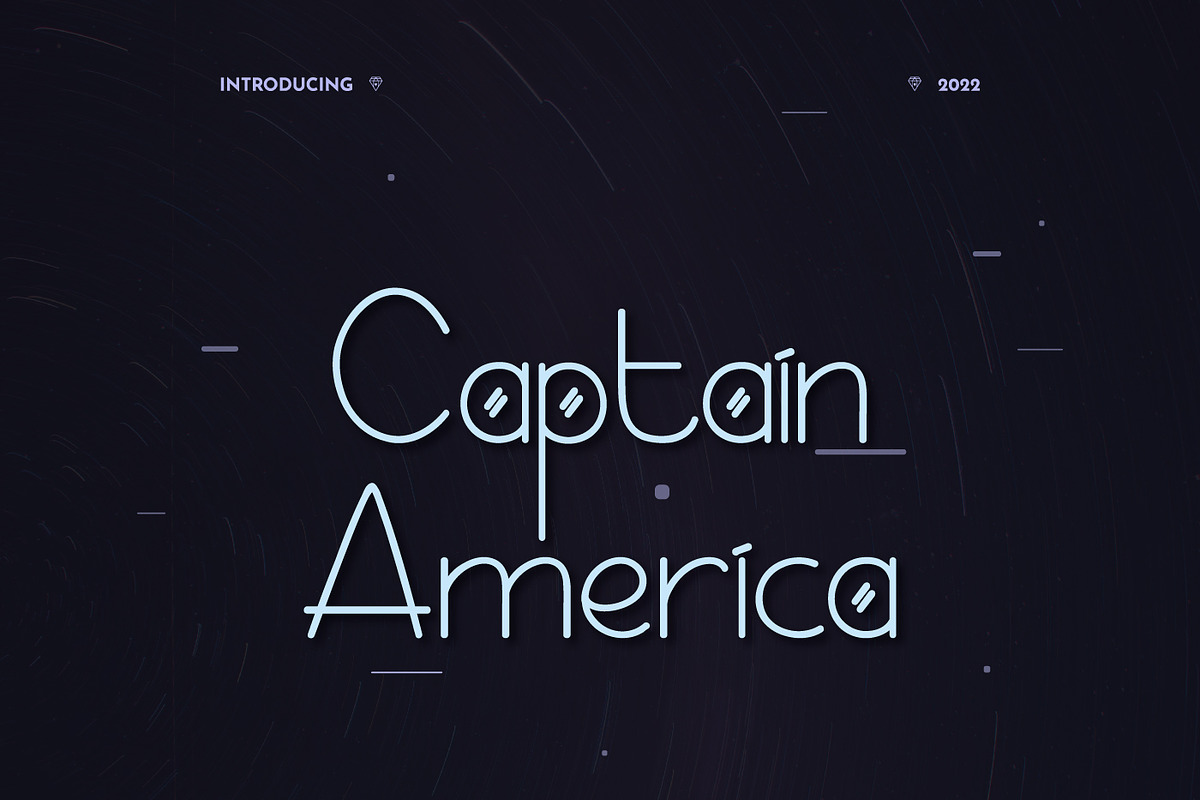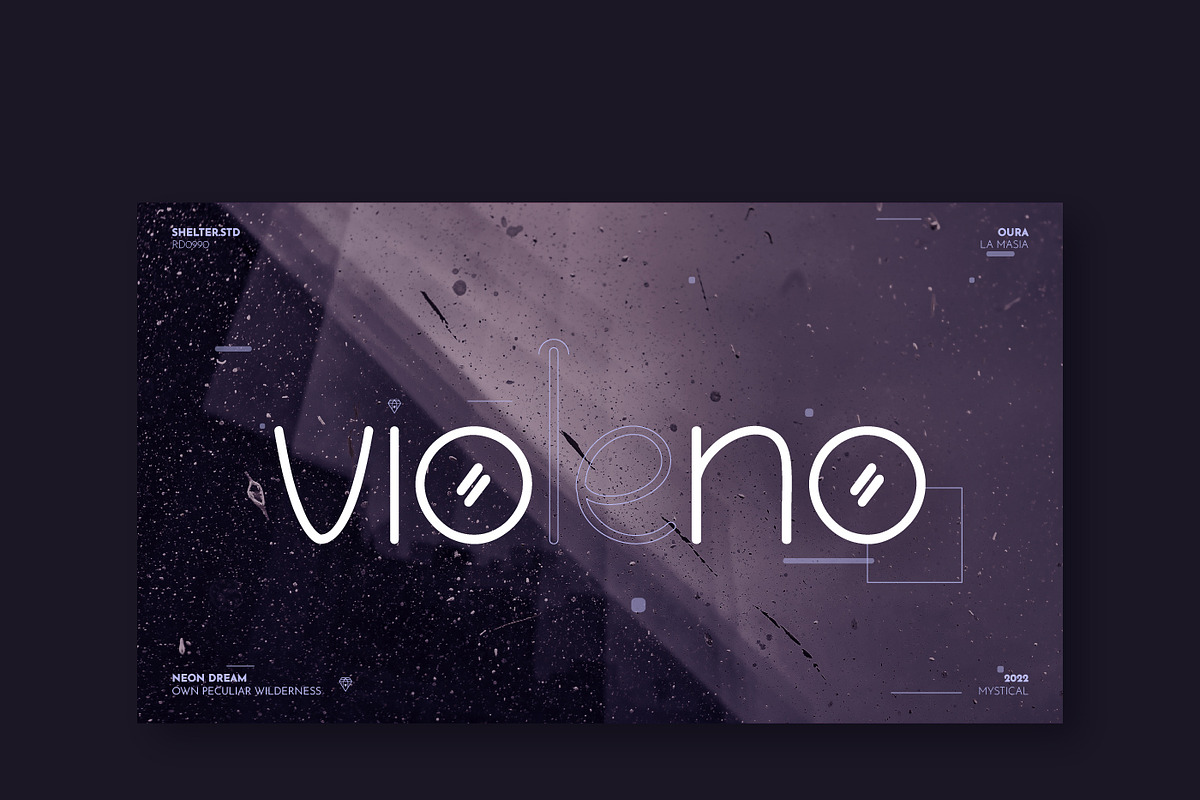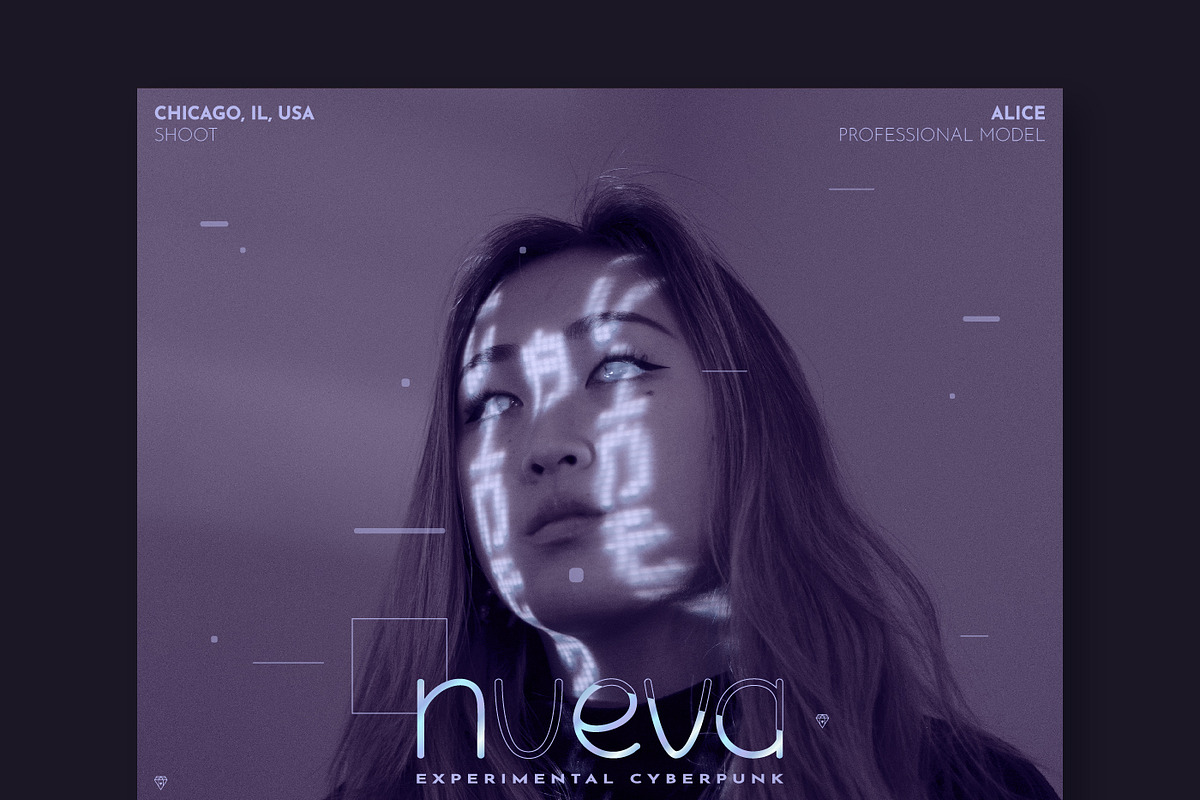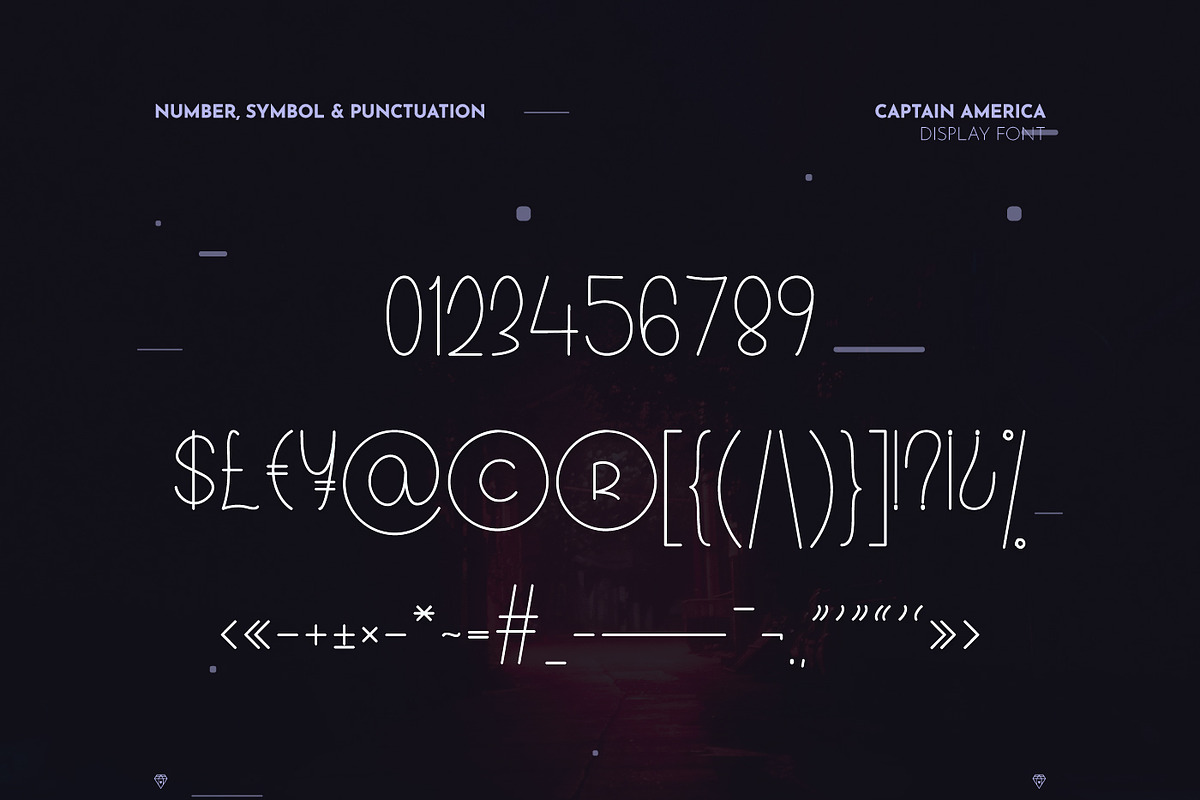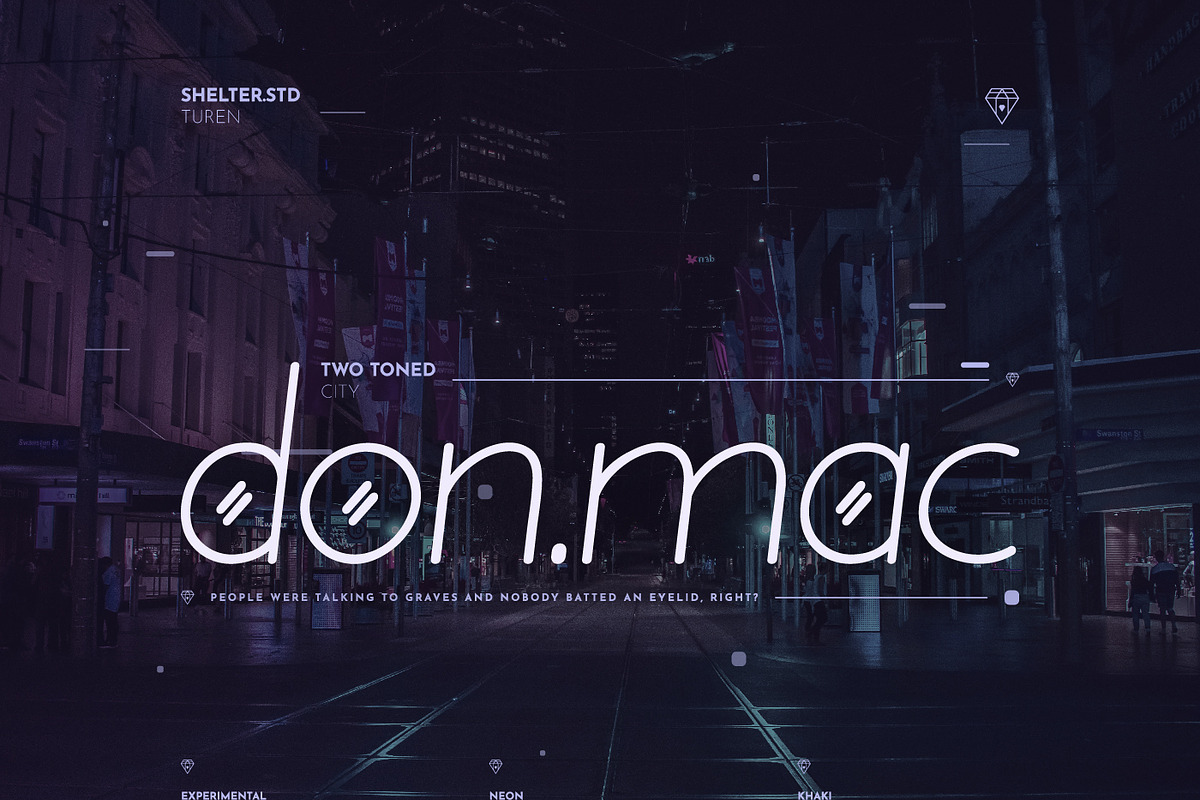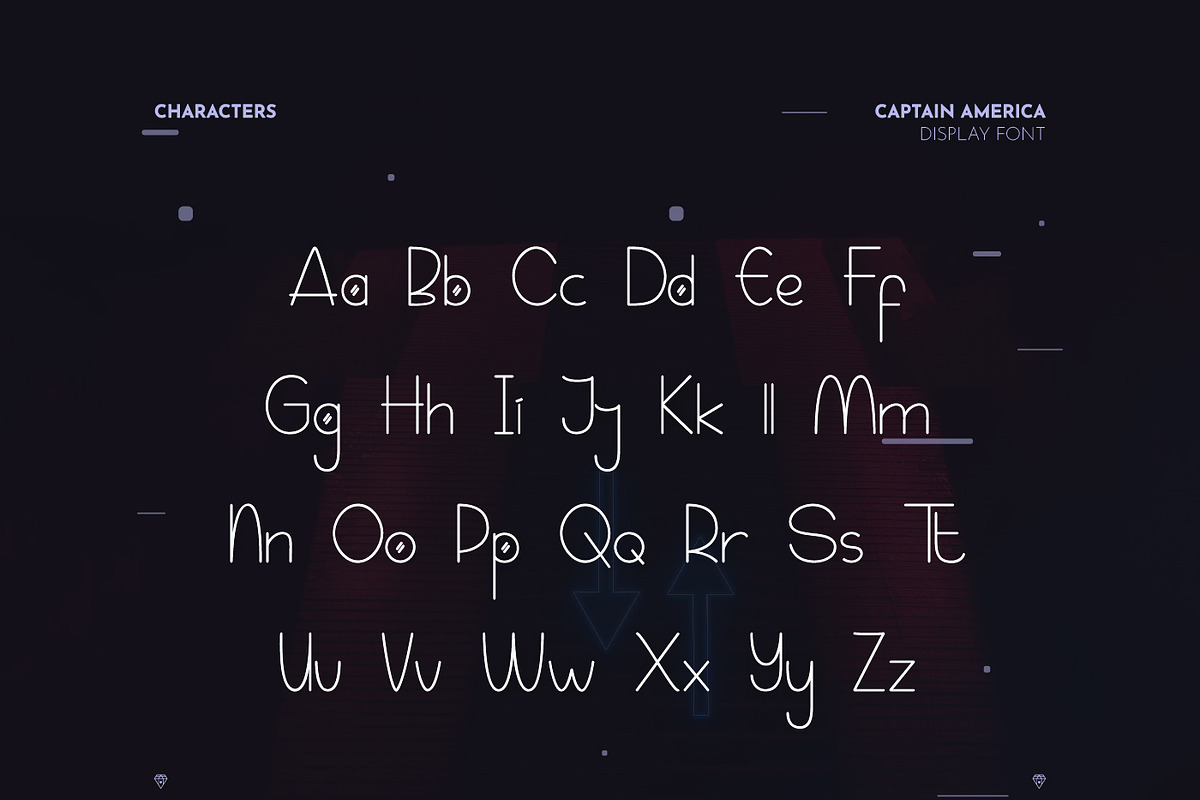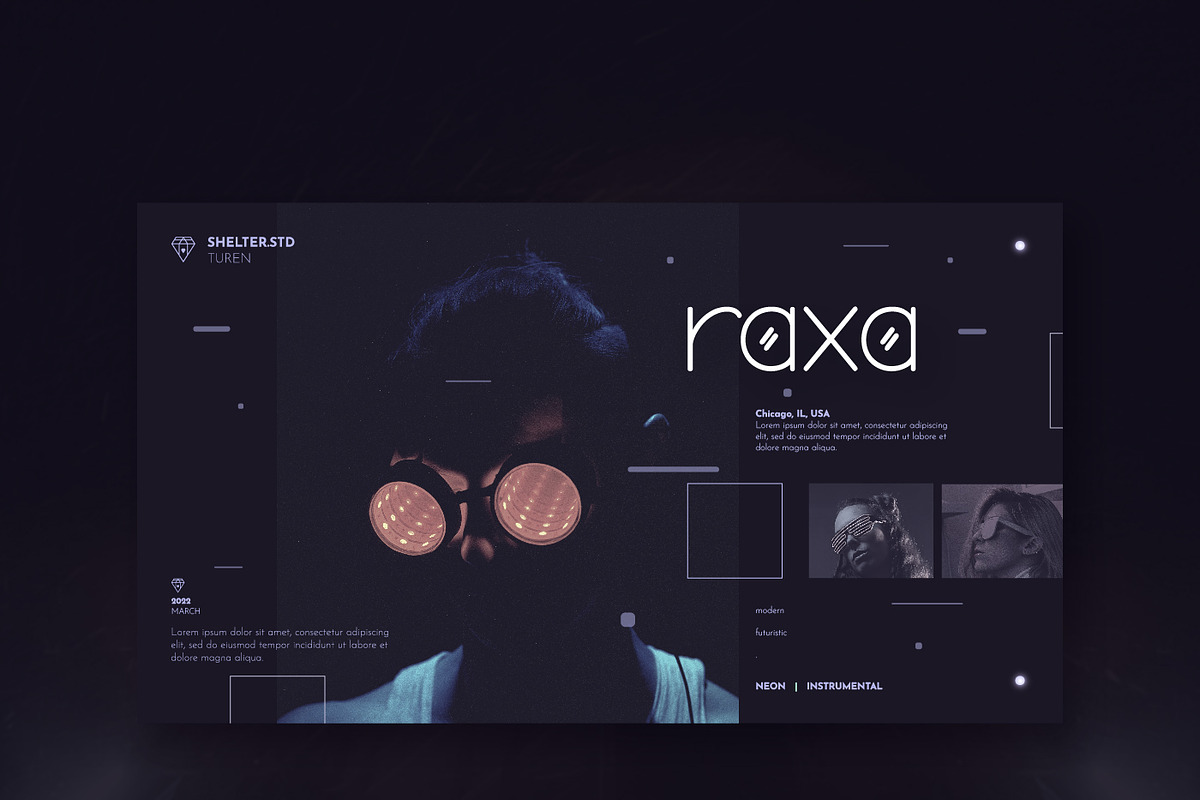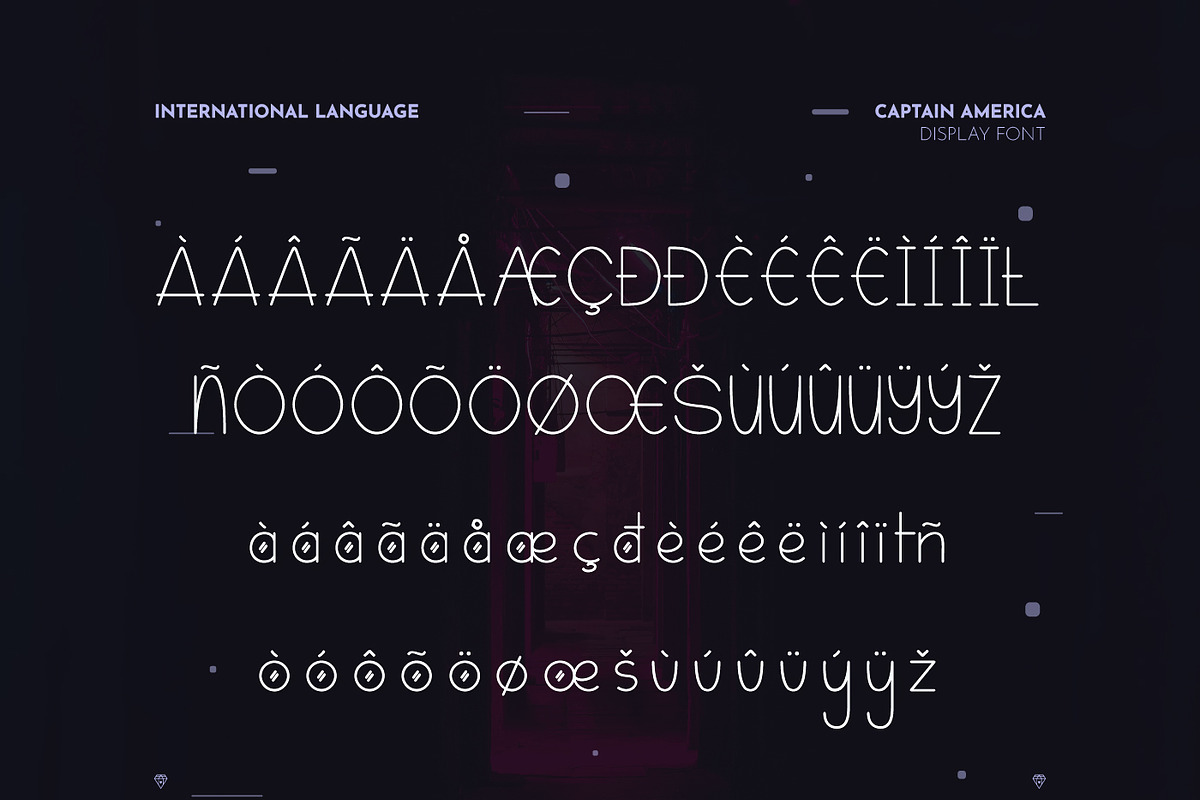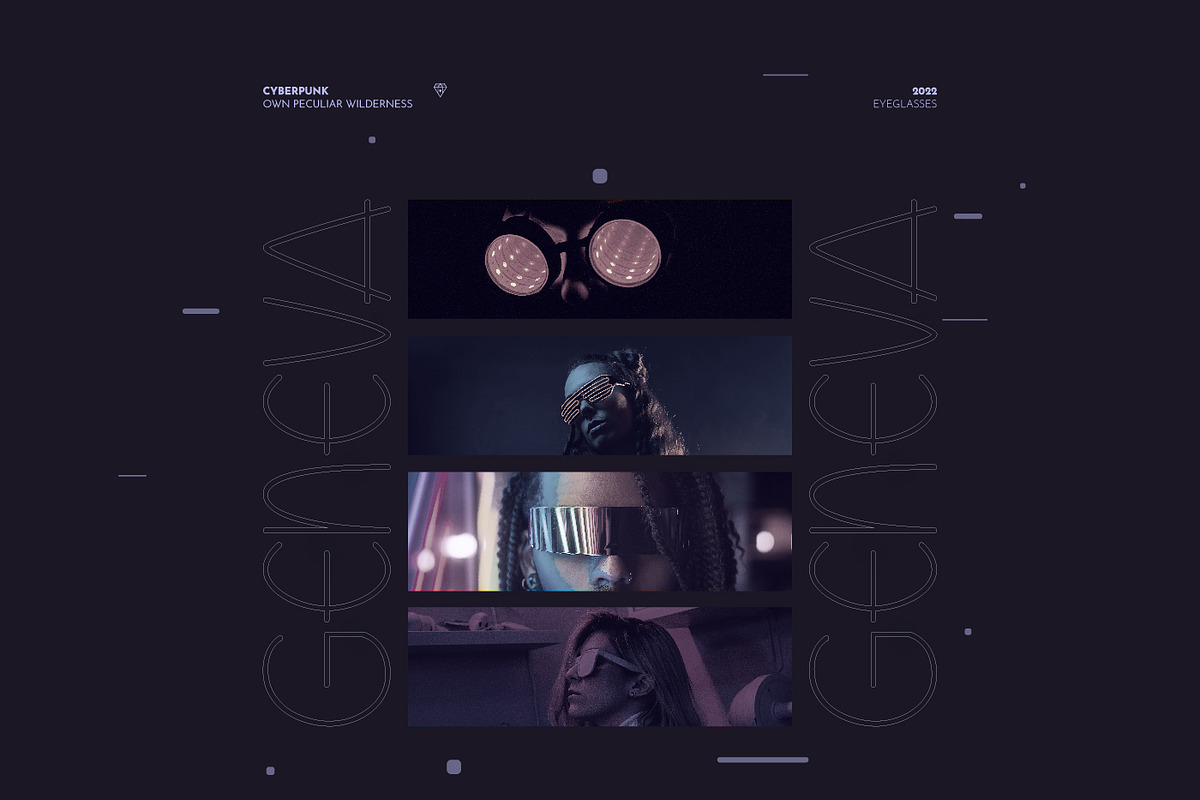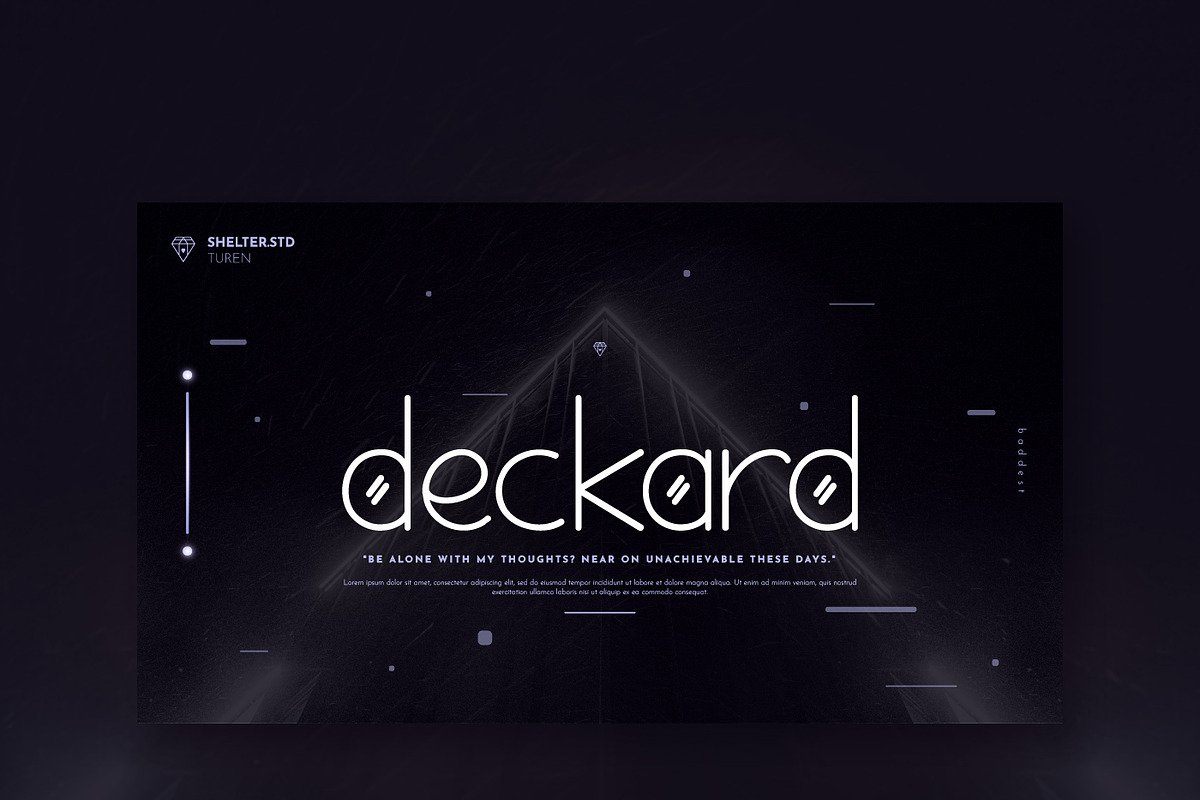
Captain America Modern Display
Thin with two-lines on some points make Captain America truly unique. The one of Display Modern Font, made in 2022 that were inspired from "Captain America's" shield; roundish and has line accents. "Captain America" completely made for templates, posters, social media post, journals, and more. Neat and unique make "Captain America" is captivating, in addition make the design will be impressive.